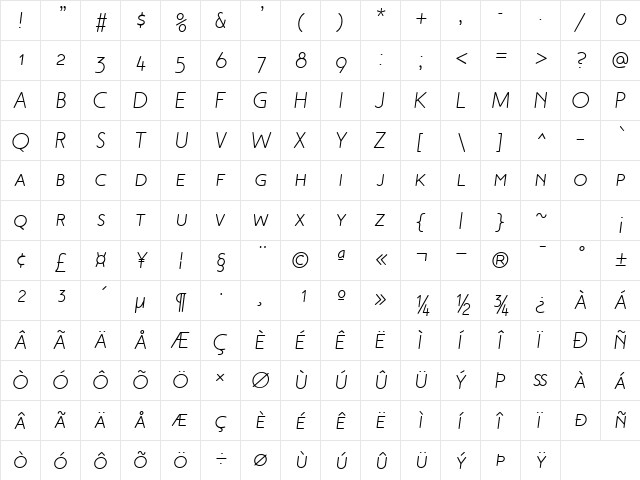
Malvern SC Italic
Design Context for Malvern SC Typeface
Malvern SC offers clean, dependable letterforms without strong stylistic allegiance, making it a practical choice for designers who need flexibility. The dynamic lean of this cut emphasises speed and emphasis in any layout.
Pro Tip: Try Malvern SC for annotation and caption copy alongside an upright companion — the contrast in angle creates a dynamic but ordered typographic system.